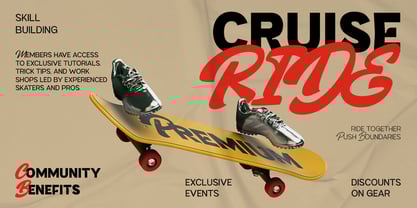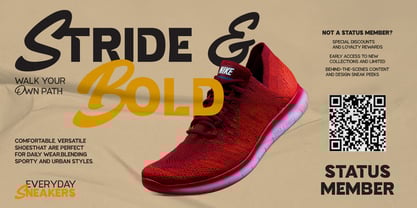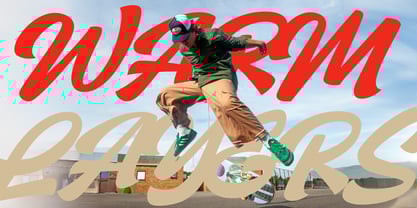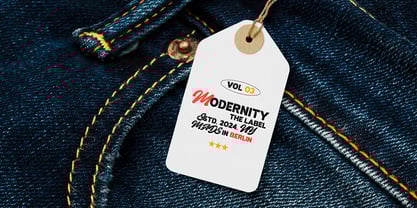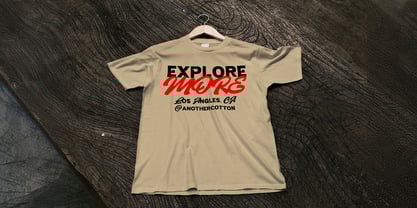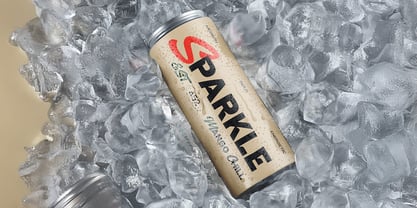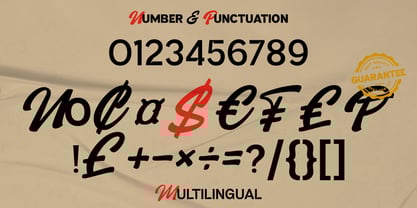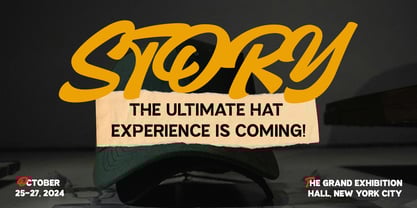
Decider
La familia tipográfica Decider fue diseñada por Donis Miftahudin y publicada por Ditatype. Decider contiene 9 estilos y opciones de paquete familiar. Más información sobre esta familia
Unleash creativity with Decider, a captivating hybrid font that masterfully blends the expressive strokes of a brush with the clean precision of sans serif design. This unique combination creates a font that’s both dynamic and refined, perfect for projects that demand versatility and style. Made in 9 weight options, Decider adapts effortlessly to a wide range of applications. Its harmonious design strikes the perfect balance between artistic flair and modern simplicity, ensuring your designs leave a lasting impression.
Decider’s different weight fonts :
• Thin
• Extra Light
• Light
• Regular
• Medium
• Semi Bold
• Bold
• Extra Bold
• Black
Features:
• Multilingual Supports
• PUA Encoded
• Numerals and Punctuations
Decider fits in headlines, logos, posters, invitation, branding materials, packaging, print media, editorial layouts, and many more designs. Find out more ways to use this font by taking a look at the font preview.